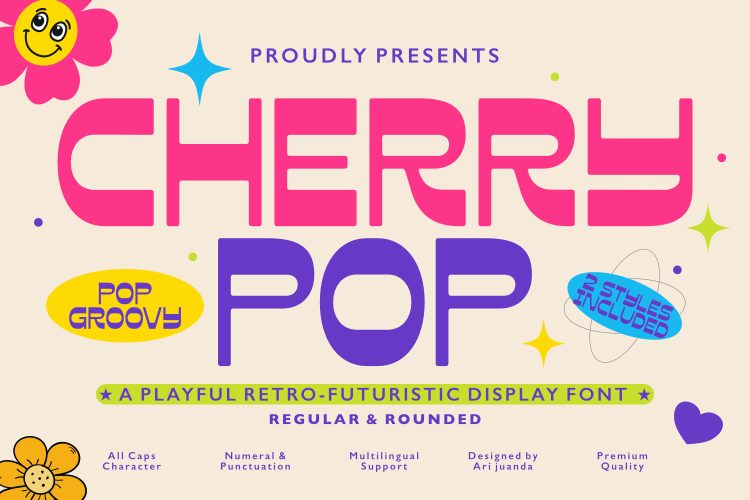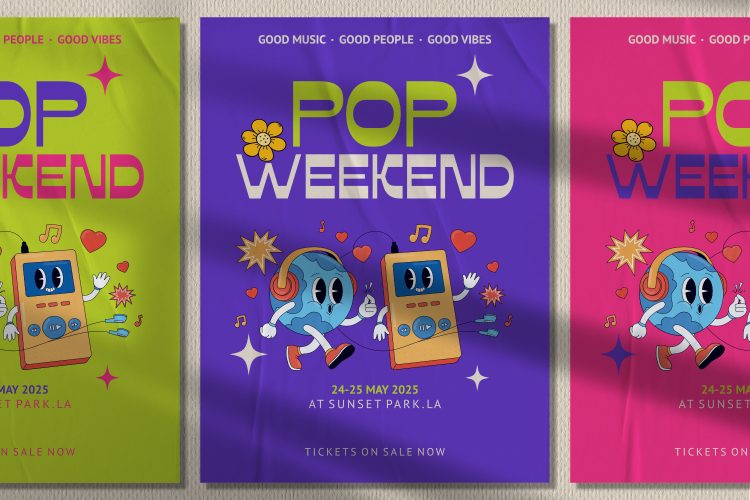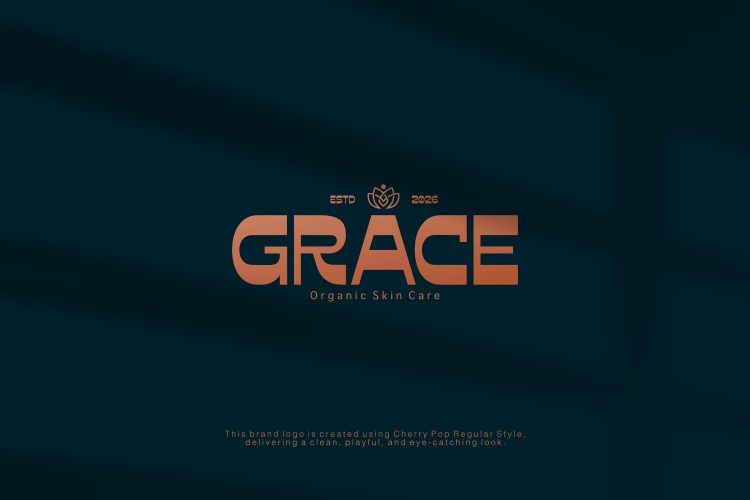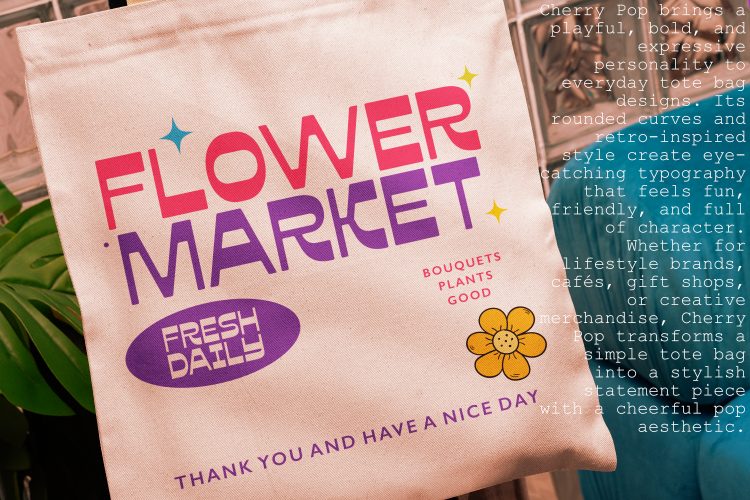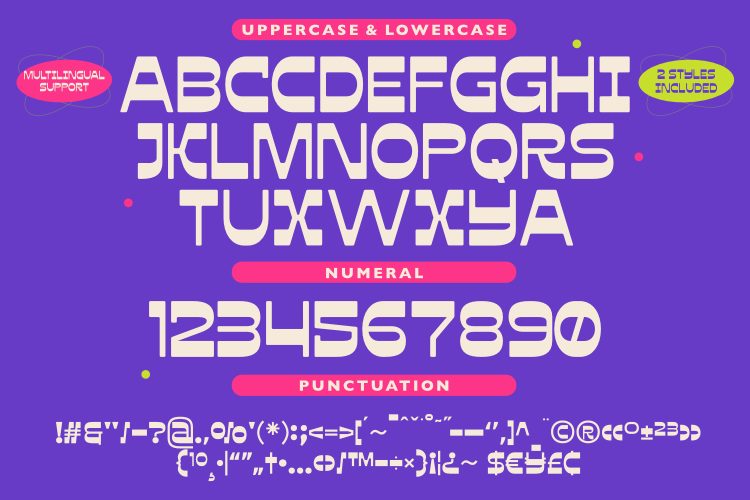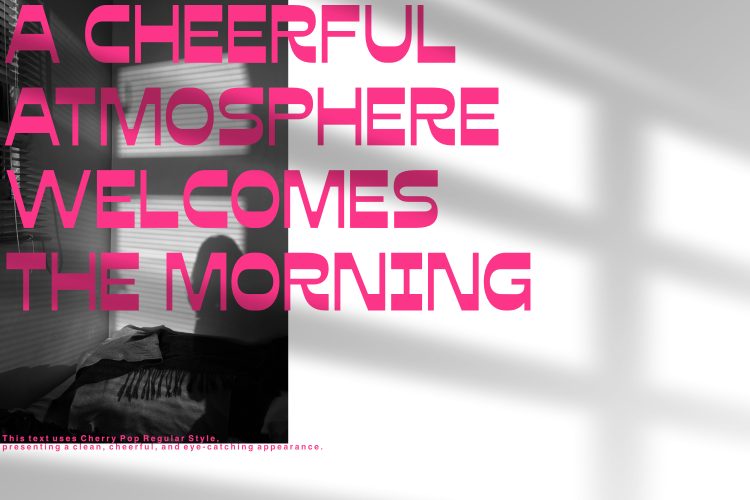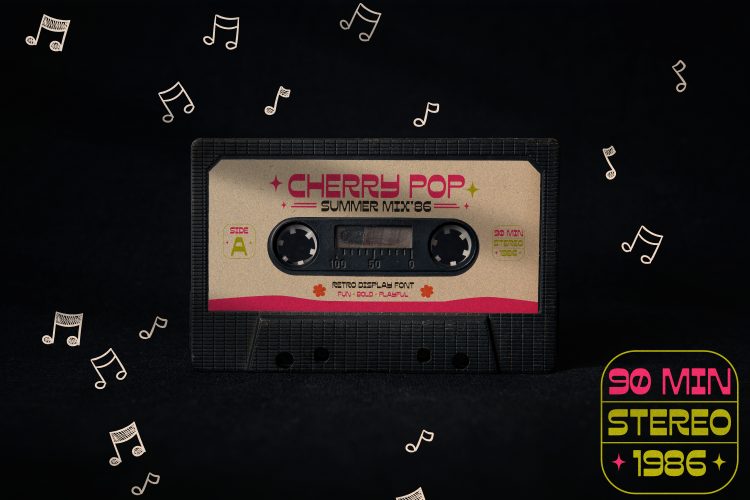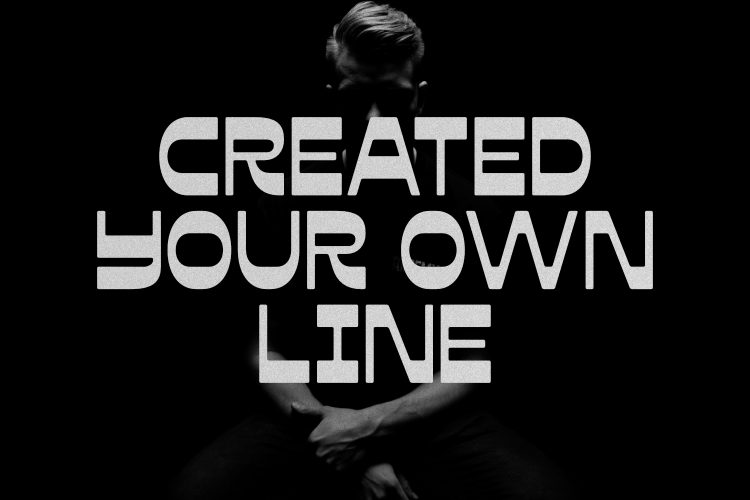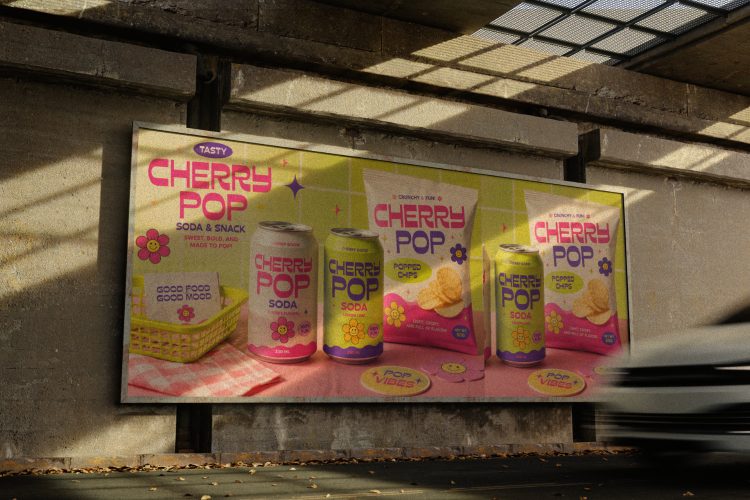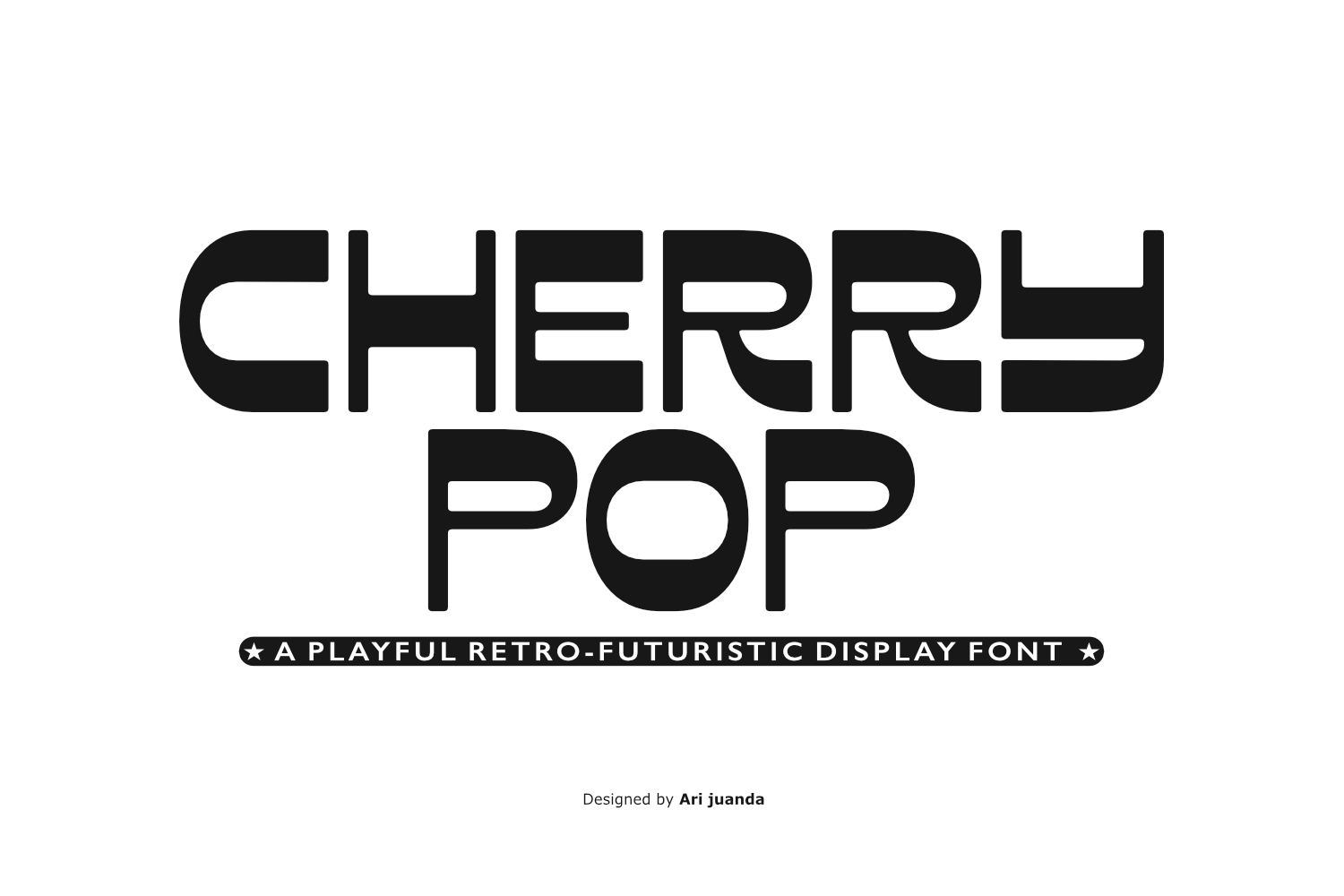
Cherry Pop
Cherry Pop Font – Playful Retro Display Font
Cherry Pop Font is a playful retro display font designed by Ari Juanda for expressive typography, colorful branding, posters, packaging, logos, merchandise, and modern creative projects. Inspired by the energetic character of retro pop culture and Y2K aesthetics, Cherry Pop combines bold geometric forms with smooth rounded details to create a distinctive and cheerful visual personality.
The Cherry Pop Font brings together nostalgic retro character and a clean contemporary approach. Its geometric construction gives the letters a strong presence, while the rounded details create a friendly and approachable appearance. This combination makes Cherry Pop suitable for designers who want typography that feels fun, memorable, and visually expressive.
Cherry Pop includes two styles: Regular and Rounded. The Regular style provides a stronger geometric appearance, while the Rounded style introduces a softer and friendlier character. Having both styles gives designers more flexibility when creating different visual directions within the same project.
Perfect For
Cherry Pop Font works especially well for designs that need a playful, retro, or energetic typographic style. It can be used for:
• Logo Design
• Brand Identity
• Retro Branding
• Y2K Design
• Packaging Design
• Cosmetic Packaging
• Café and Restaurant Branding
• Posters
• Music Posters
• Festival Graphics
• Merchandise
• T-Shirt Design
• Tote Bags
• Stickers
• Children’s Products
• Toy Packaging
• Social Media Graphics
• YouTube Thumbnails
• Headlines
• Creative Typography
Whether you are designing a retro-inspired brand identity, an eye-catching poster, a product package, or social media content, Cherry Pop can give your typography a strong visual personality.
Features
• Regular & Rounded Styles
• Uppercase & Lowercase
• Numerals & Punctuation
• Multilingual Support
• PUA Encoded
• Easy to Use
• Suitable for Logos and Branding
• Suitable for Posters and Headlines
• Suitable for Packaging and Merchandise
Why You’ll Love Cherry Pop
Cherry Pop Font is designed for designers who want something more expressive than a conventional display typeface. Its geometric construction, rounded details, and two available styles make it adaptable across a wide range of creative applications.
The Regular style can create a stronger retro-geometric impression, while the Rounded style offers a softer visual direction. This makes Cherry Pop useful for both bold headlines and friendly branding where personality is important.
Its retro-inspired appearance also makes Cherry Pop a natural choice for projects influenced by Y2K aesthetics, vintage graphics, pop culture, arcade-inspired visuals, music, fashion, and contemporary entertainment design.
Cherry Pop Font by Ari Juanda
If you are looking for a playful retro font, retro display font, or Y2K-inspired display typeface, Cherry Pop offers a distinctive combination of geometric structure, rounded forms, and expressive personality.